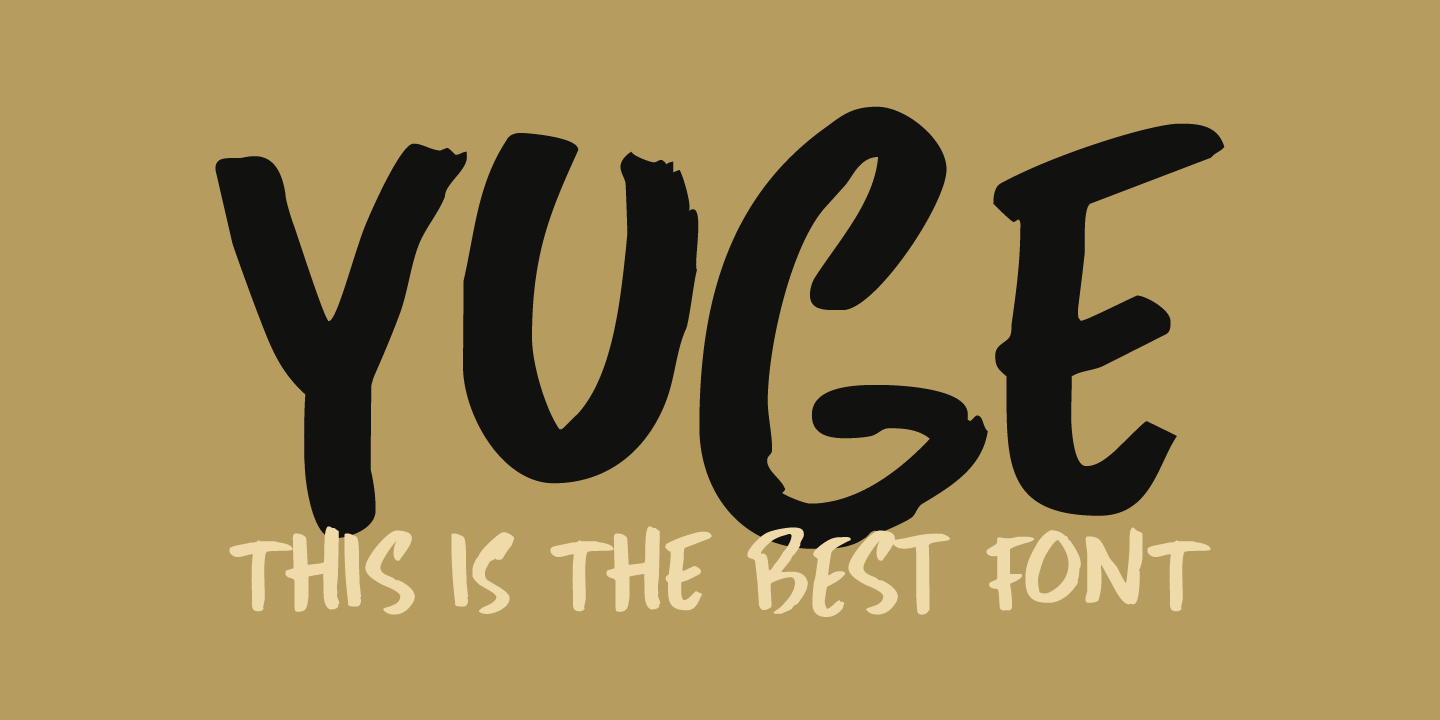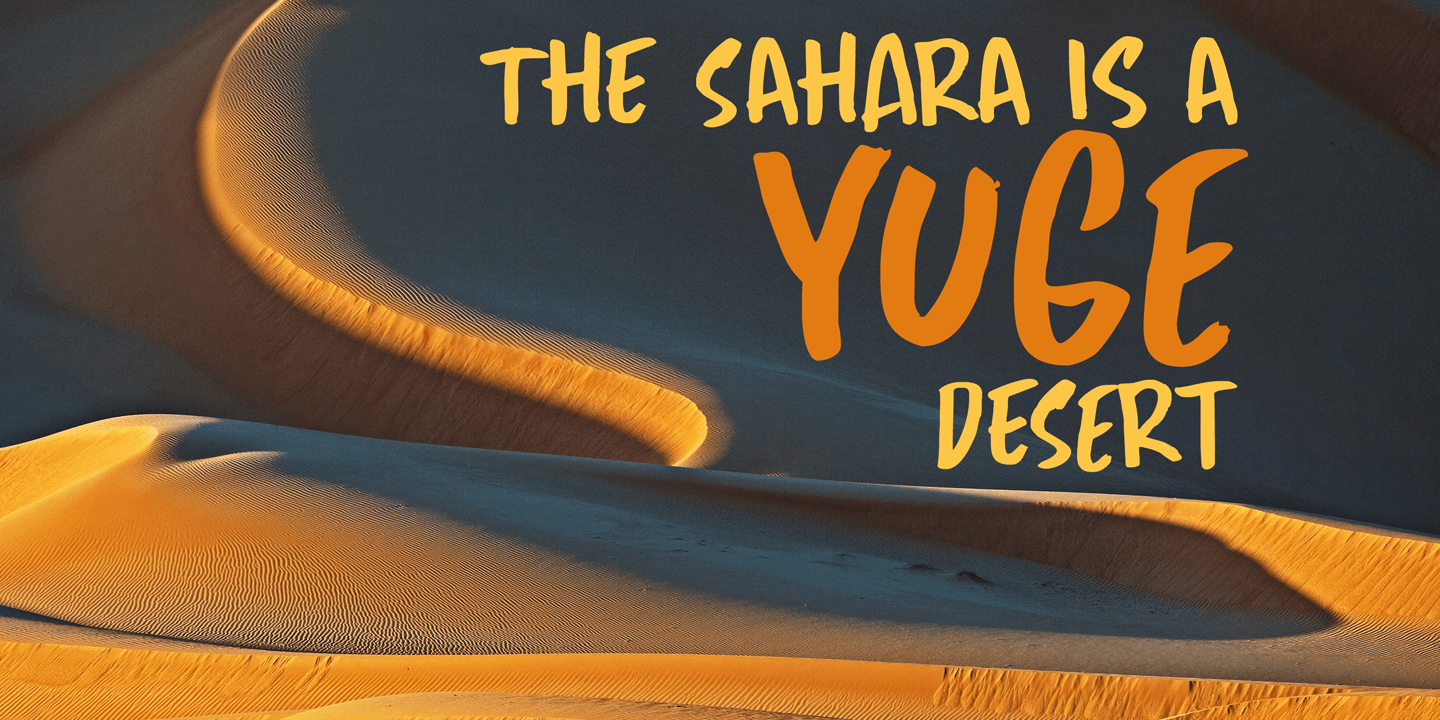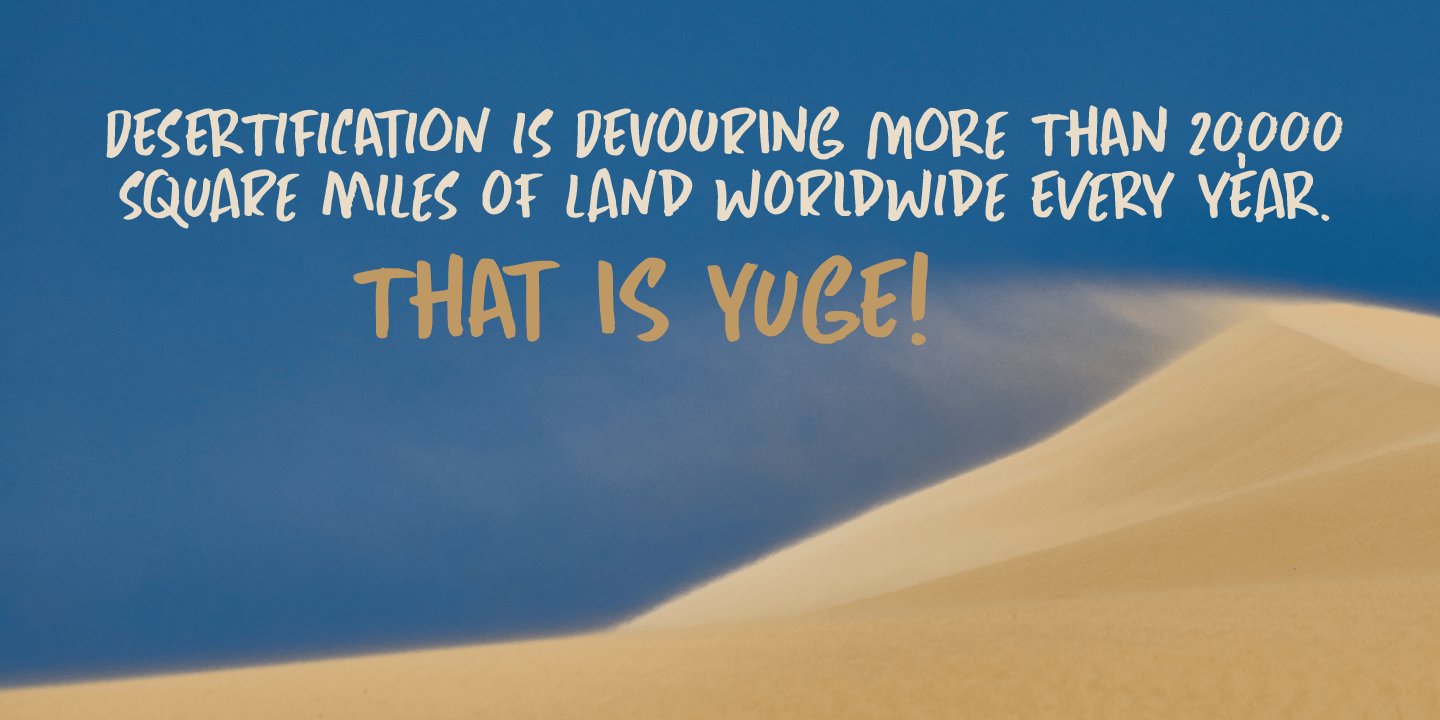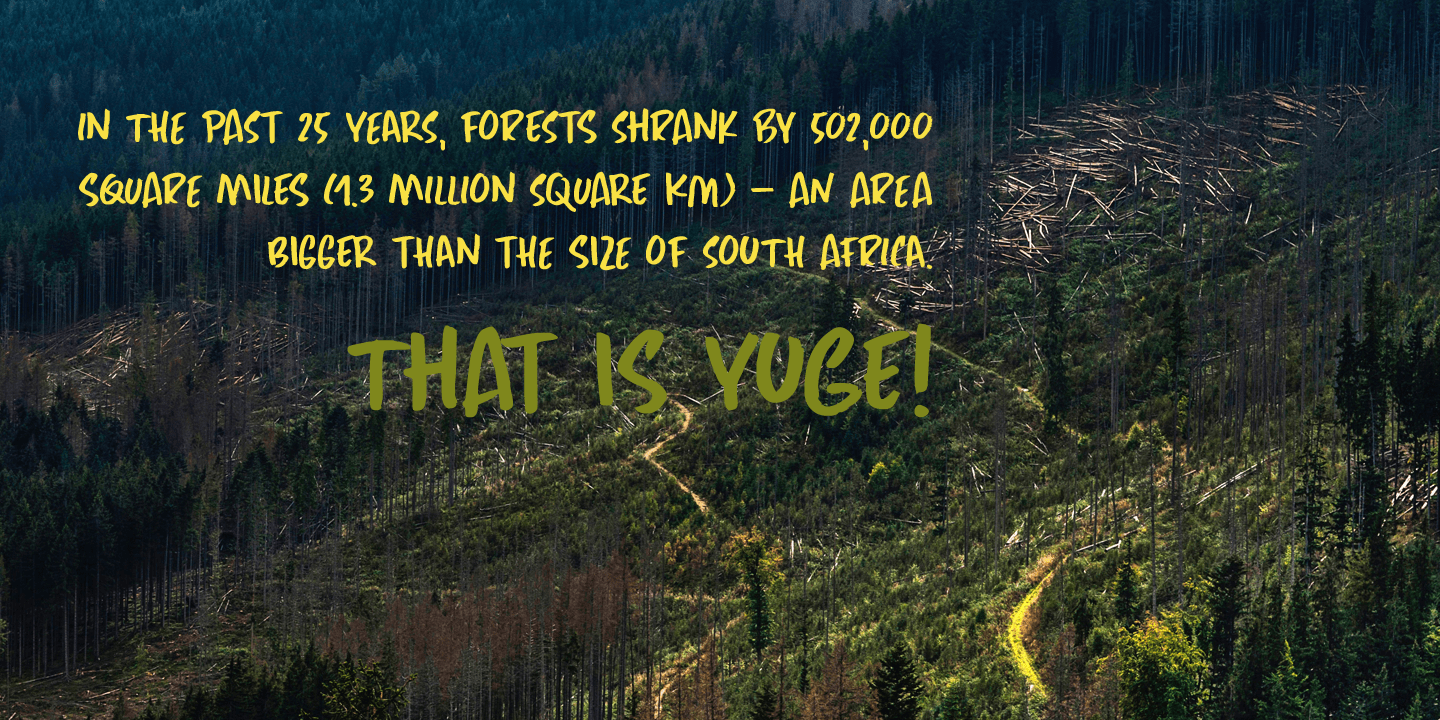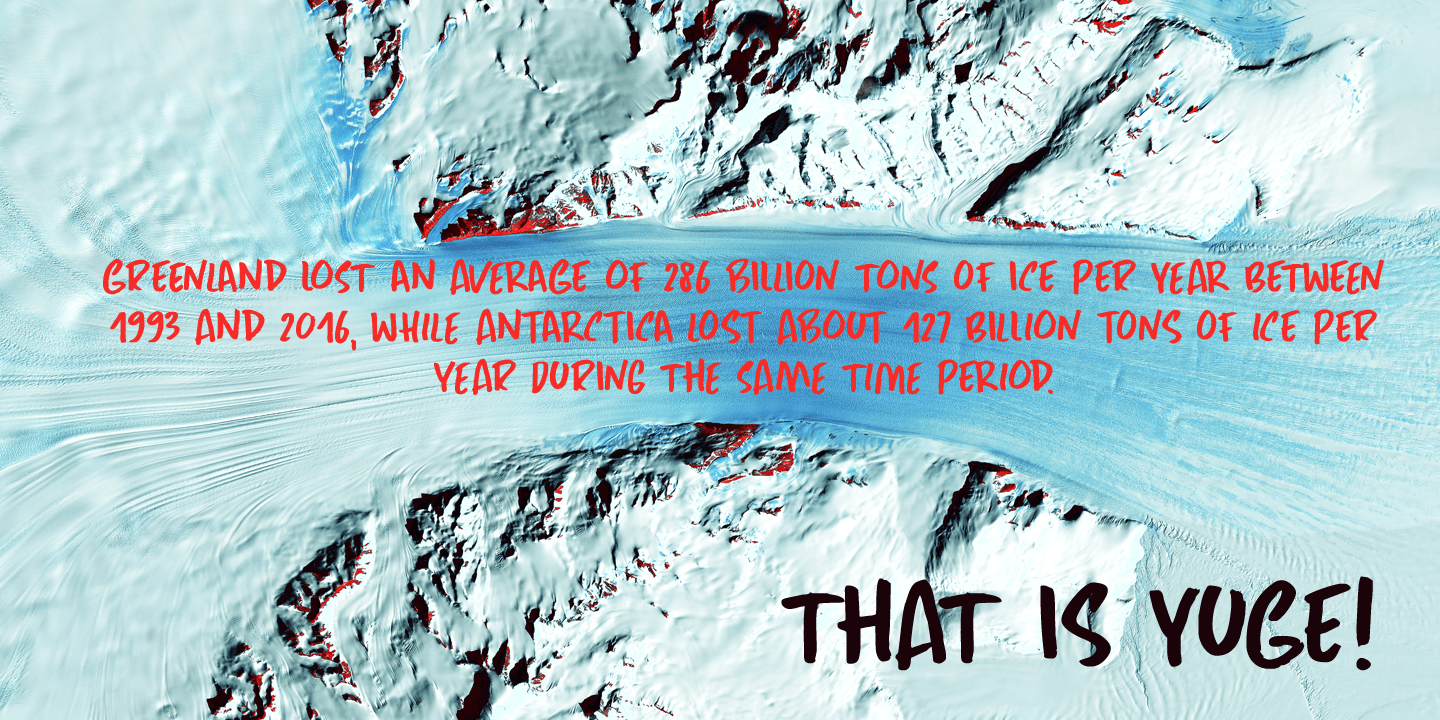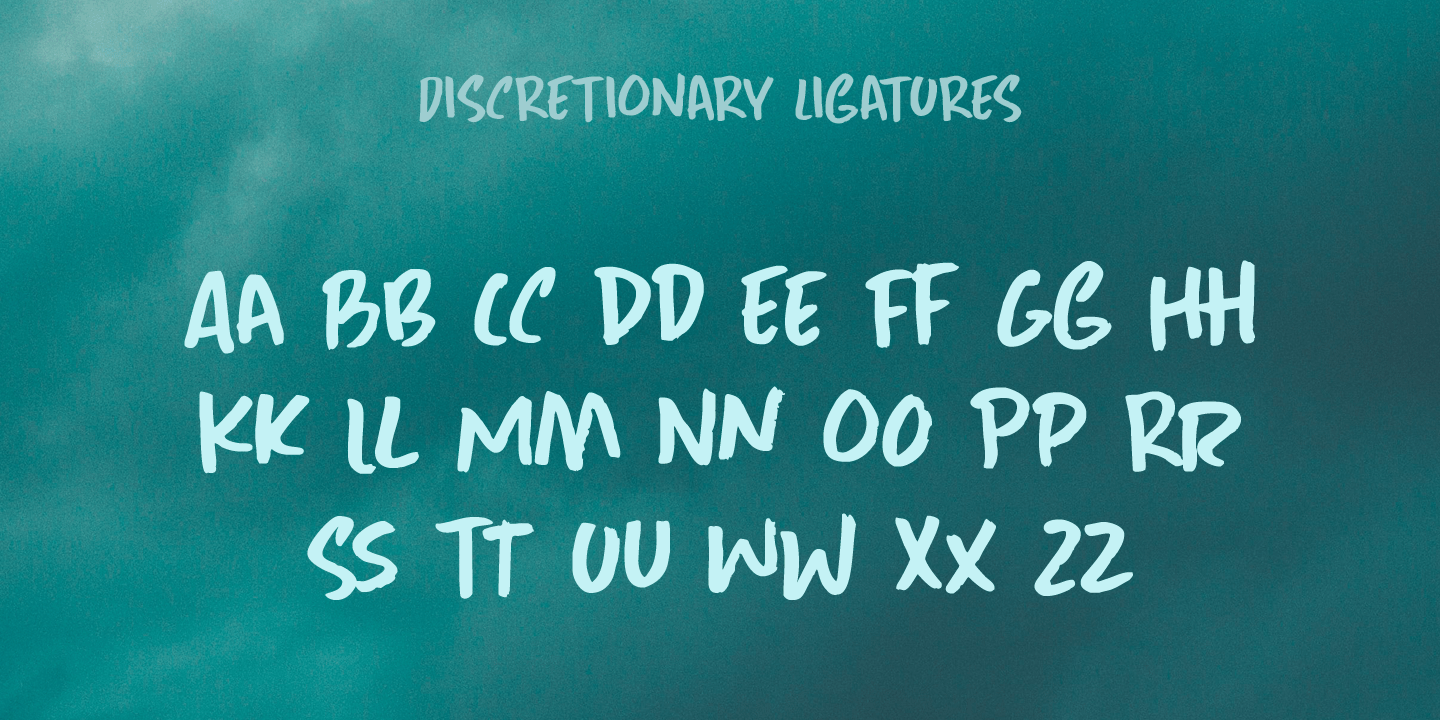
Yuge
Font Family by Hanoded
Yuge, apparently, is how New Yorkers pronounce huge. I have never been to New York, so I can't tell if this is a fact. But I often hear a certain New Yorker pronounce it that way, so I guess it's sort of true.
Yuge is a handwritten font - made with a Sharpie pen. Believe me, it is a good font. It is fantastic. It is the best font ever. It is YUGE! ;-)